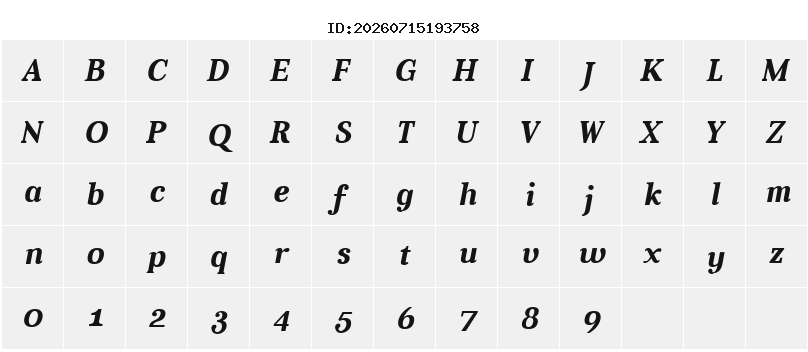
• Font Name: Aver
• Designer: Lauren Thompson
• Description: Completed and released in May of 2012, Aver began very humbly as the first traditional or old-style serif typeface design by Lauren Thompson in June of 2009. (The 'as yet un-named serif' shown in this post depicts the earliest Aver concept: http://www.nymfont.com/2009/06/preview-of-upcoming-fonts.html) Three years brewing and proven to be true, Aver asserts emphatically and solemnly.